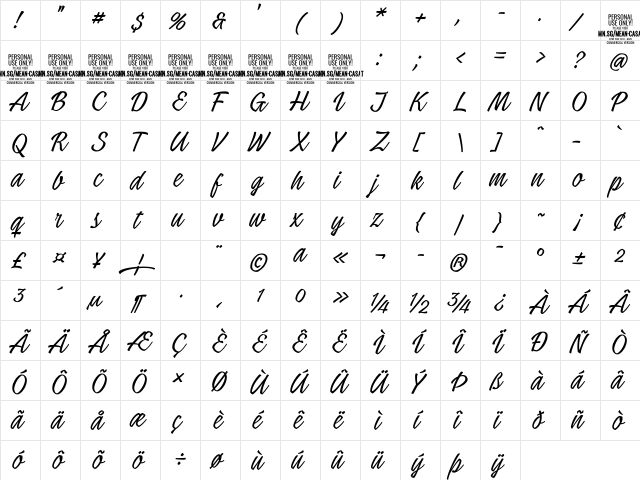
Mean Casat Thin PERSONAL USE Regular
| Foundry | Mans Greback |
| Designer | Mans Greback |
Design Context for Mean Casat Thin PERSONAL USE Typeface
Mean Casat Thin PERSONAL USE is a composed and adaptable typeface that performs quietly and consistently across a wide range of design contexts. The delicate stroke weight brings airiness and refinement to layouts.